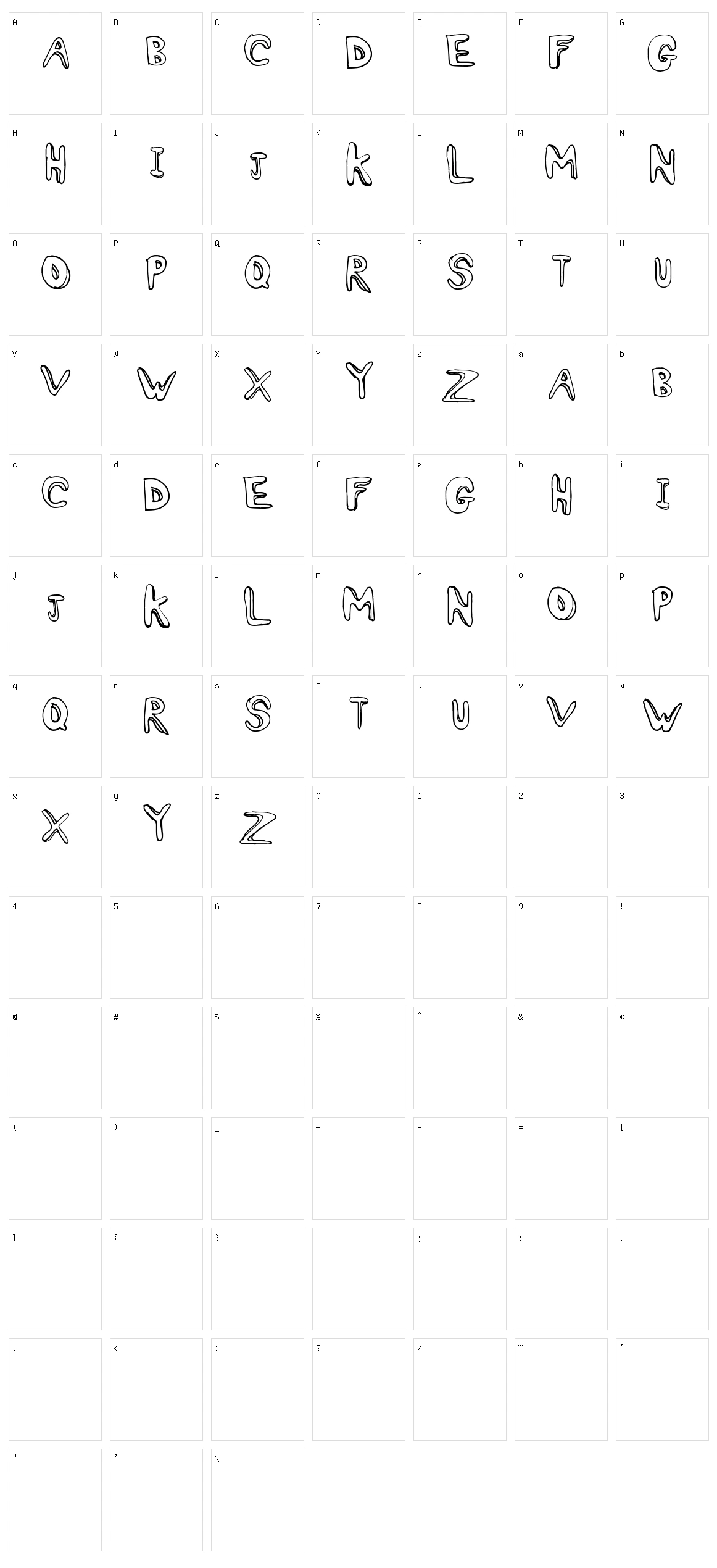
The free font Oh Ashy is carefully designed by Ashley Cole, showcasing a thoughtful balance of creativity and usability and falls under the Cartoon font style. When you download the ZIP file, it contains only 18.58 KB of font files, making it lightweight and quick to download. Please review the license details below to understand permitted usage and distribution rights. If license information is not available, we recommend using this font for personal projects only or contacting the author directly for commercial usage permissions.